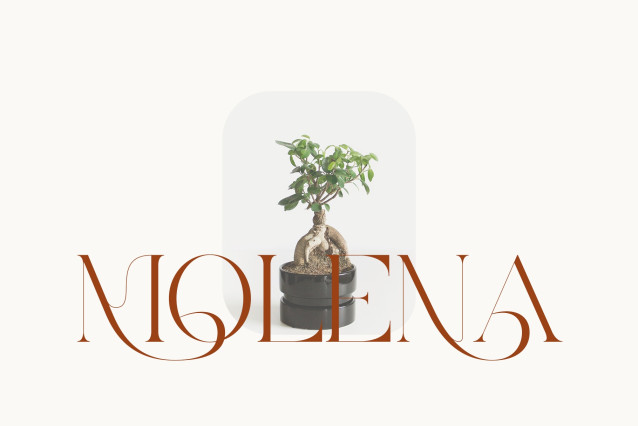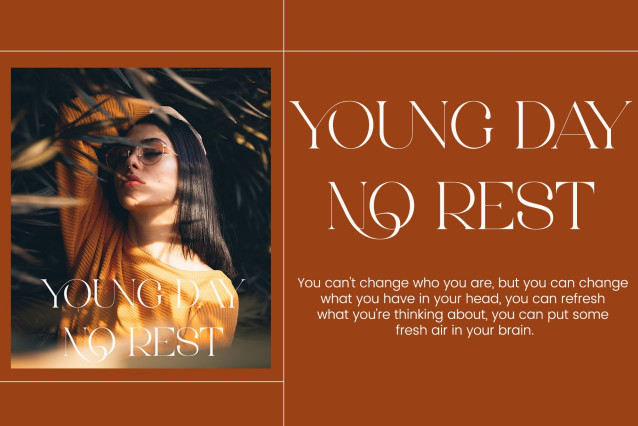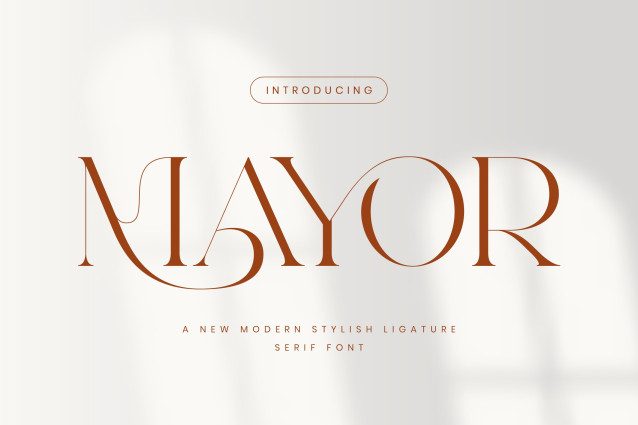
Mayor – Modern Stylish Serif Font
Mayor Stylish Ligature Typeface, inspired by the famous minimalist logo perfect for the purposes of designing templates, brochures, videos, advertising branding, logos and more.
– Ligatures
– International Accent